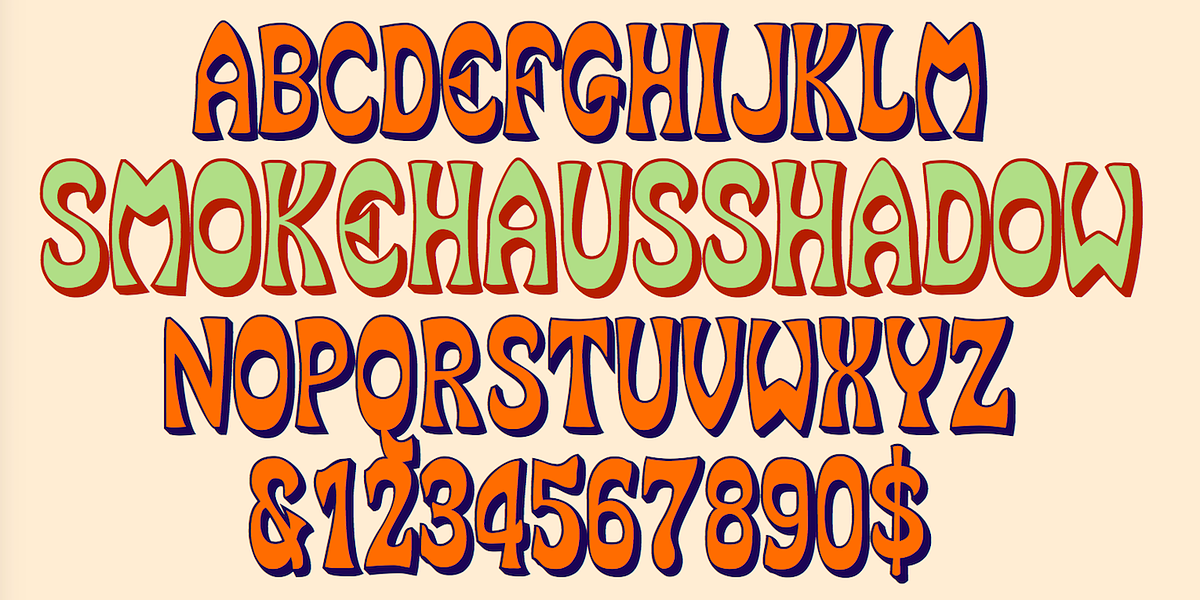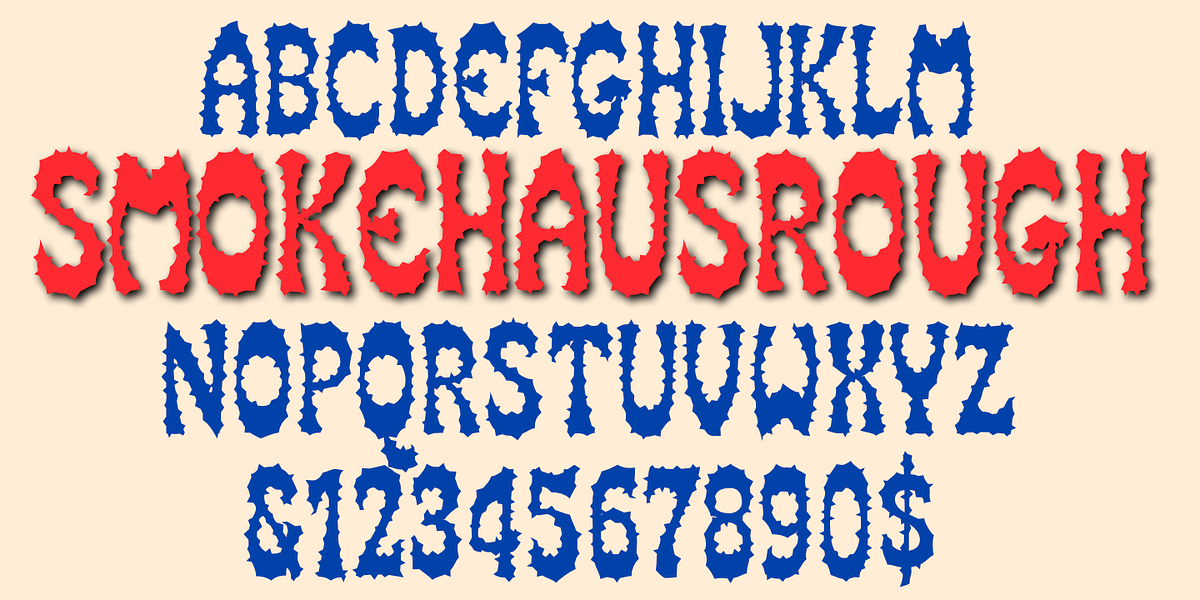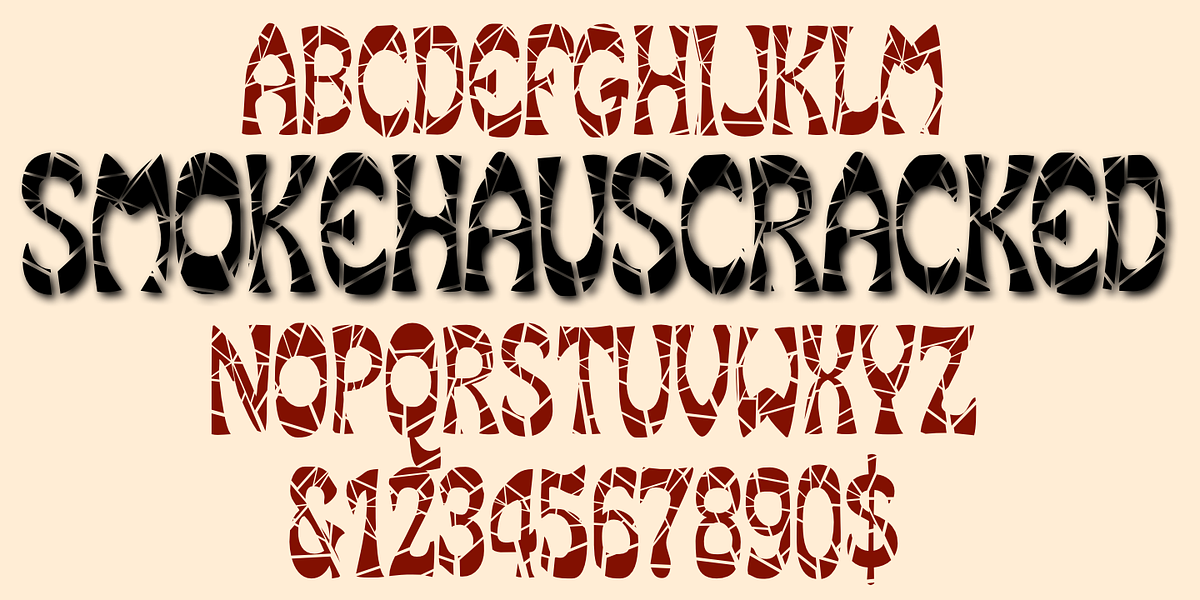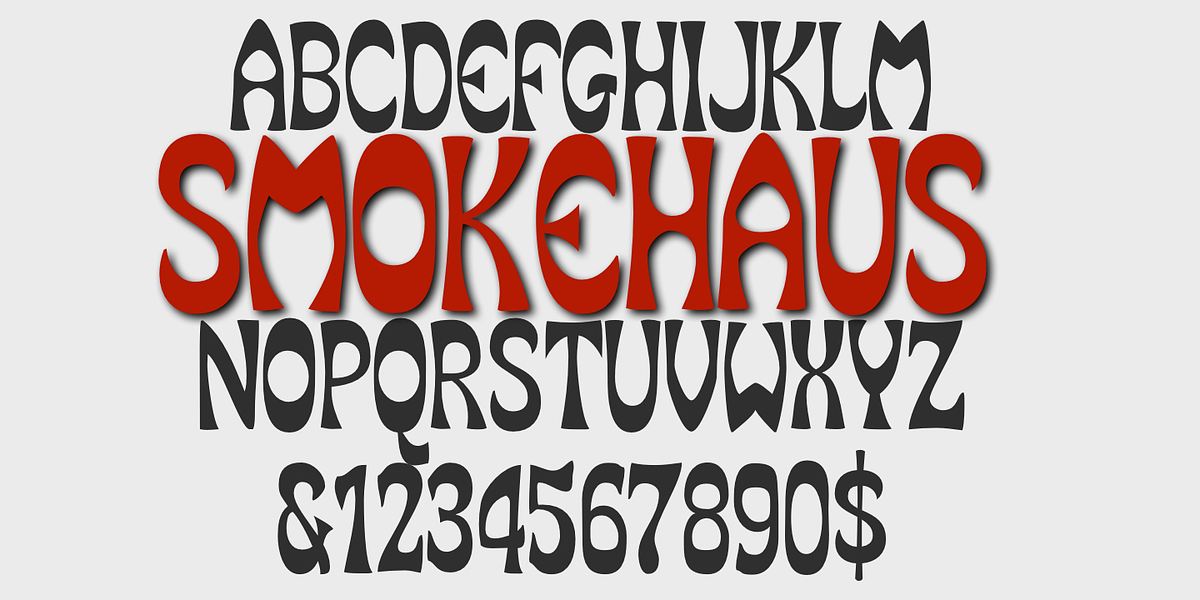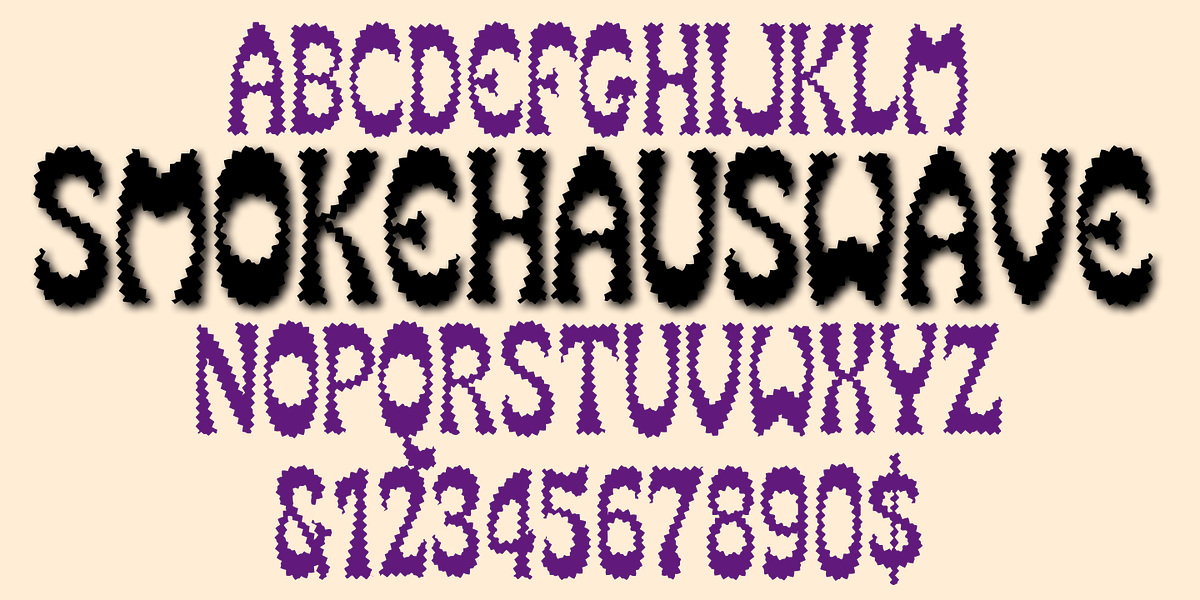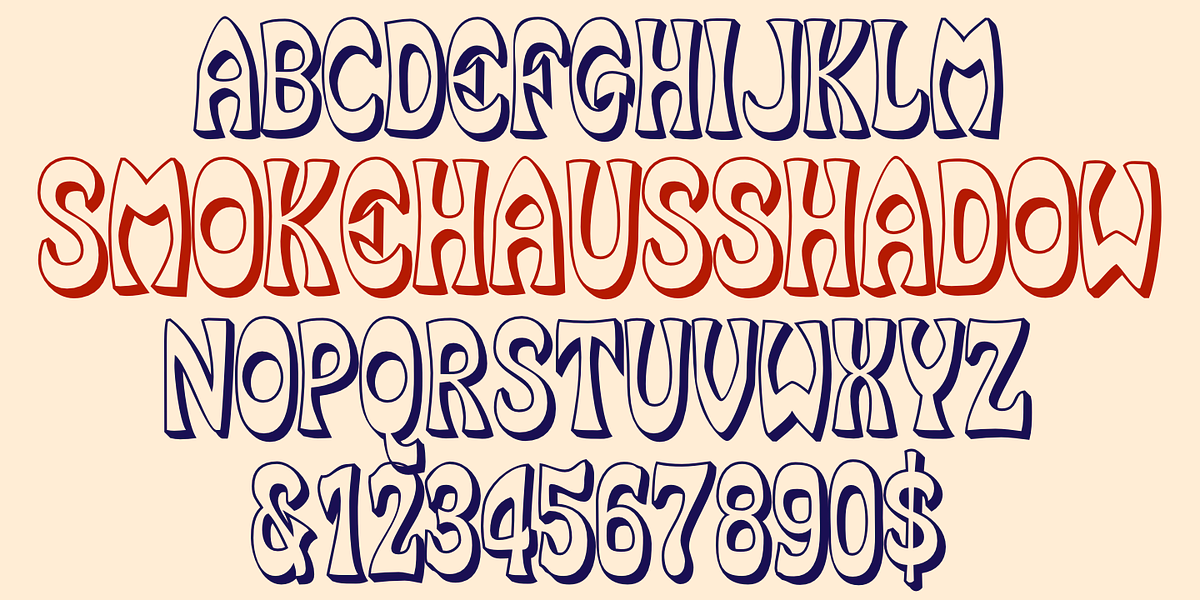
SmokeHaus
SmokeHaus is a unique display typeface characterized by its bold, rounded letters and reverse-contrast design. The font's inspiration comes from a smokehouse sign in Gustavus, Alaska, giving it a distinctly retro feel. It features various styles including shadowed, cracked, and rough versions, allowing for creative layering and text effects.